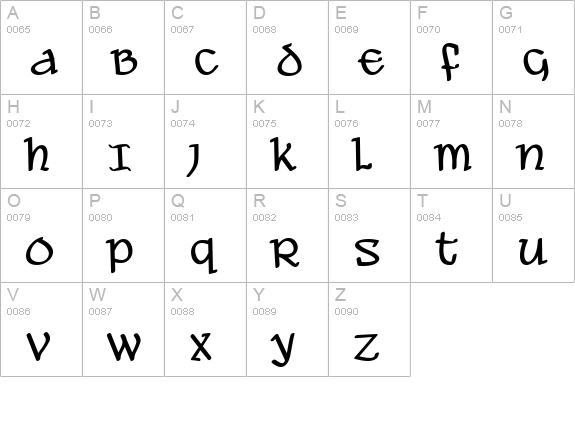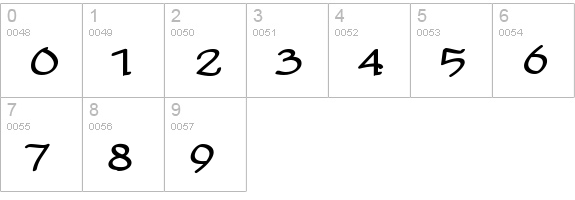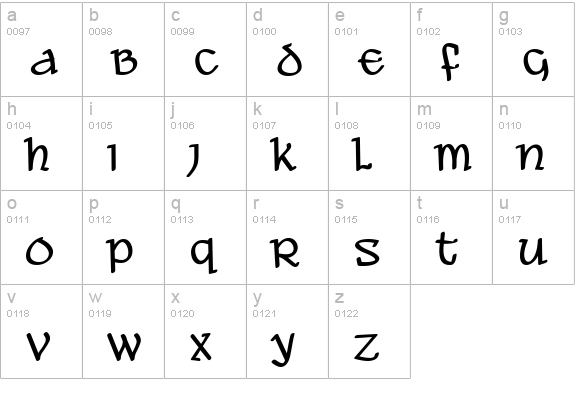
Ale and Wenches BB Font Details
The Ale and Wenches BB font is a charming and rustic typeface that exudes a sense of old-world charm and whimsy. With its bold and playful letterforms, this font is perfect for adding a touch of character to your designs. Whether you're working on a vintage-inspired project or looking to infuse some fun into your branding, the Ale and Wenches BB font is sure to make a statement. Best of all, this unique font is available for free download at FontsMarket.com. Simply visit the website to get your hands on this delightful typeface and start using it in your projects today. Don't miss out on the opportunity to add a touch of whimsical flair to your designs with the Ale and Wenches BB font - download it for free now!